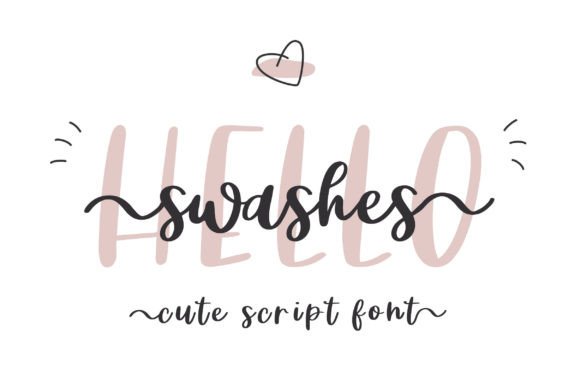
Introducing Hello Swashes Font - the Best Font For Wedding Monogram, created by the experts at Bellinghamtype! This font family is the perfect blend of elegance and style, making it a top choice for all your design needs.
Hello Swashes Font is a timeless handwritten font that brings a unique touch to your designs. Its delicate strokes, varying baseline, and smooth lines make it perfect for wedding invitations, thank you cards, quotes, greeting cards, logos, business cards, and any other design that requires a handwritten touch. Whether you're looking to create a romantic atmosphere or a chic and sophisticated design, Hello Swashes Font is the perfect choice.
This font family comes with gorgeous glyphs and stunning alternates that will elevate your design to the next level. Plus, it's PUA encoded, which means you can access all the glyphs and swashes effortlessly. With Hello Swashes Font, you'll have everything you need to create the perfect design.
The beauty of Hello Swashes Font lies in its versatility. It's perfect for a wide range of applications, from wedding monograms to business logos. With its unique style and elegant design, this font family is sure to impress your clients and make your designs stand out.